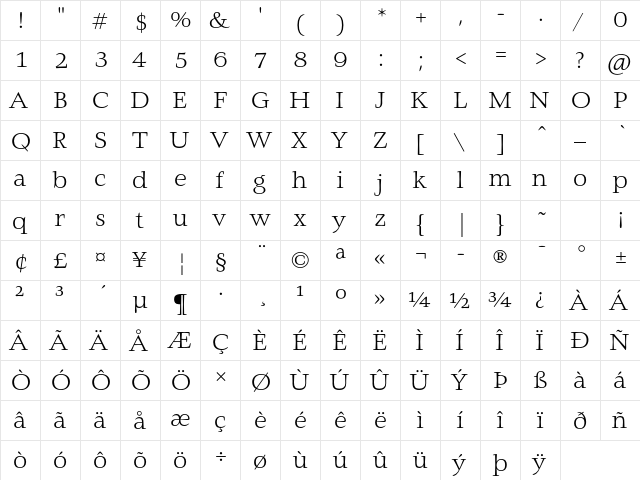
Givens Antiqua Std Light
| Designer | George Ryan |
Design Context for Givens Antiqua Std Typeface
Givens Antiqua Std takes a measured approach to typography — its balanced proportions and neutral character make it a reliable workhorse for both digital and print work. Its slender proportions lend an understated elegance to any composition.